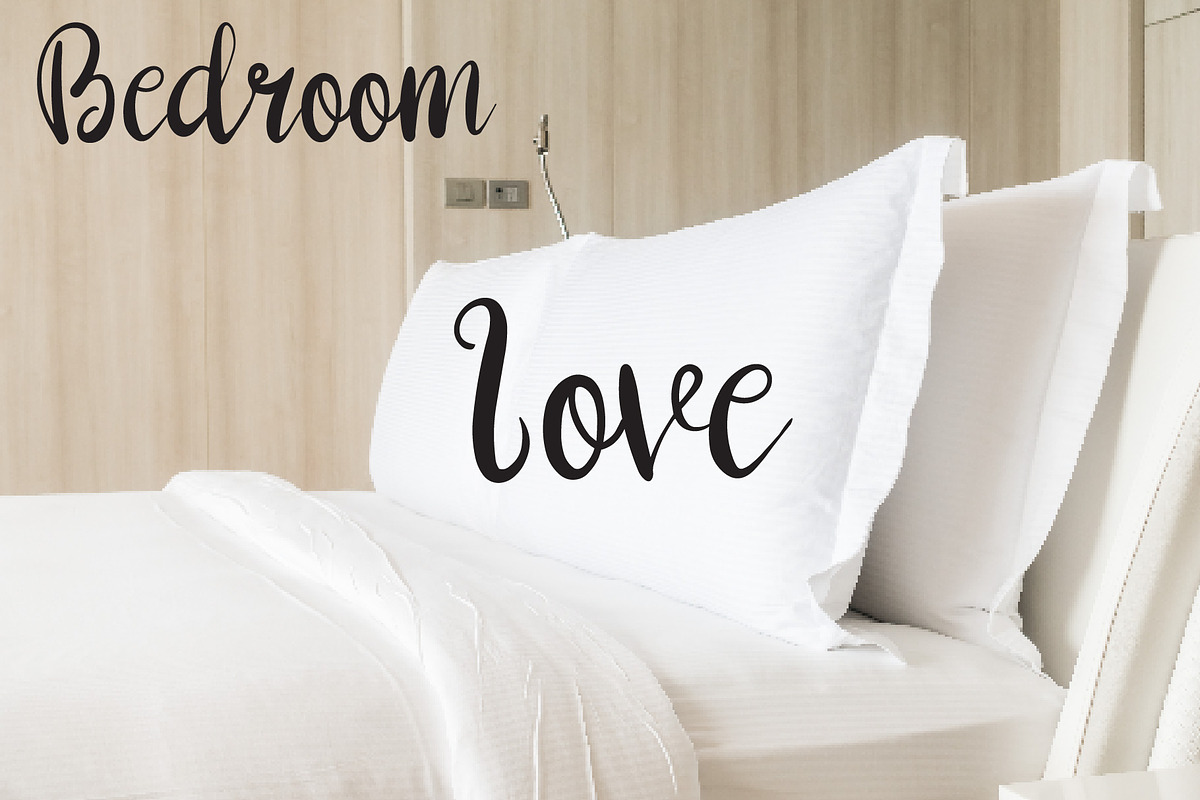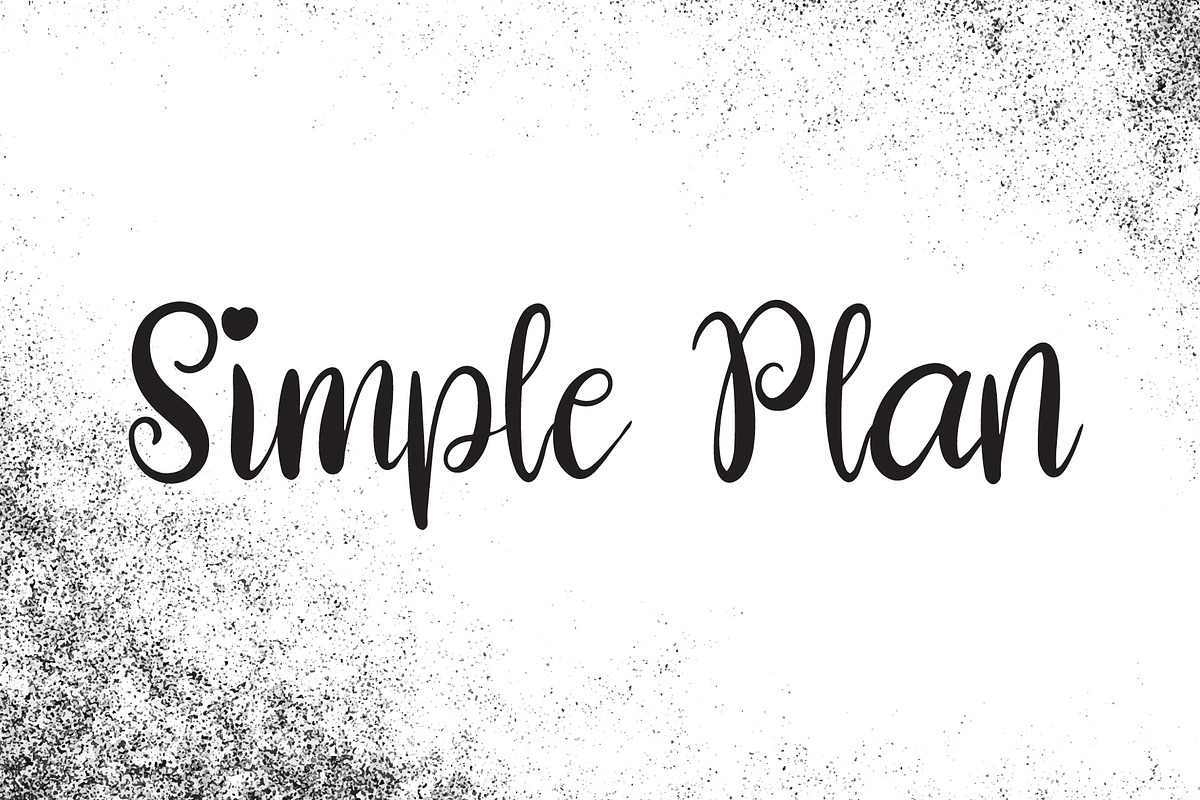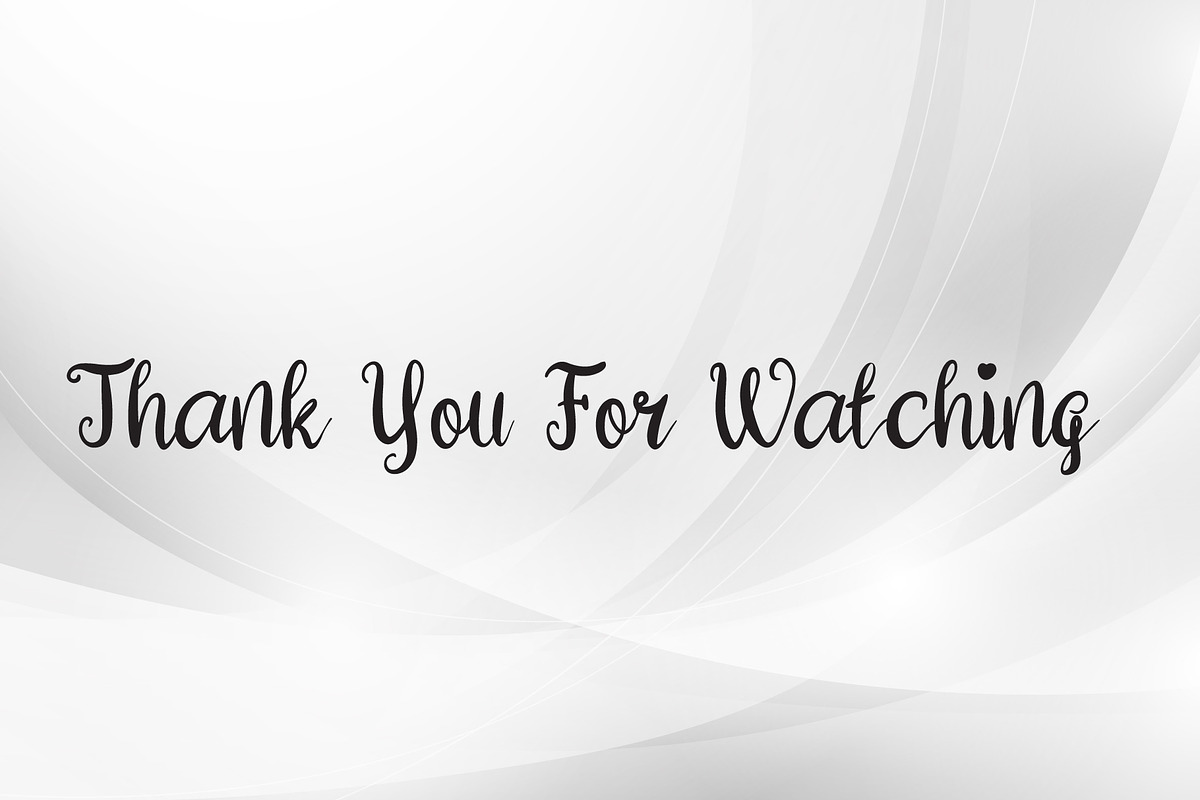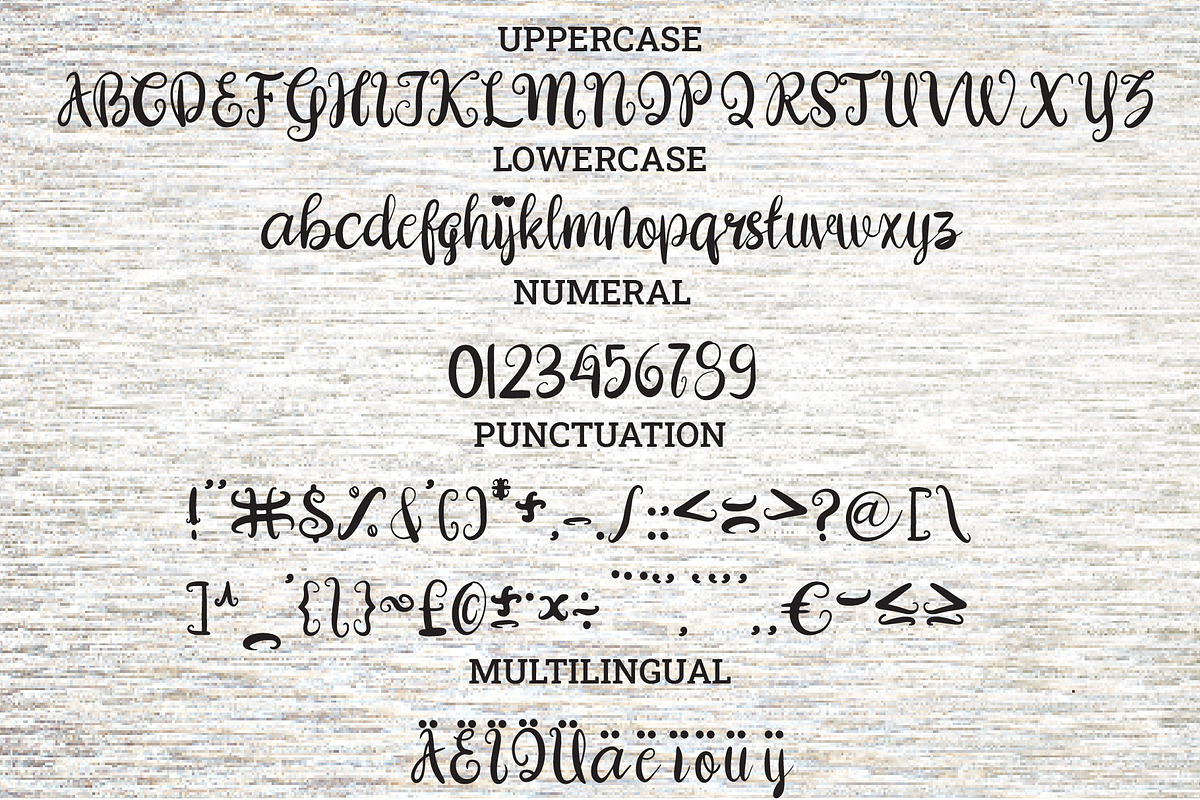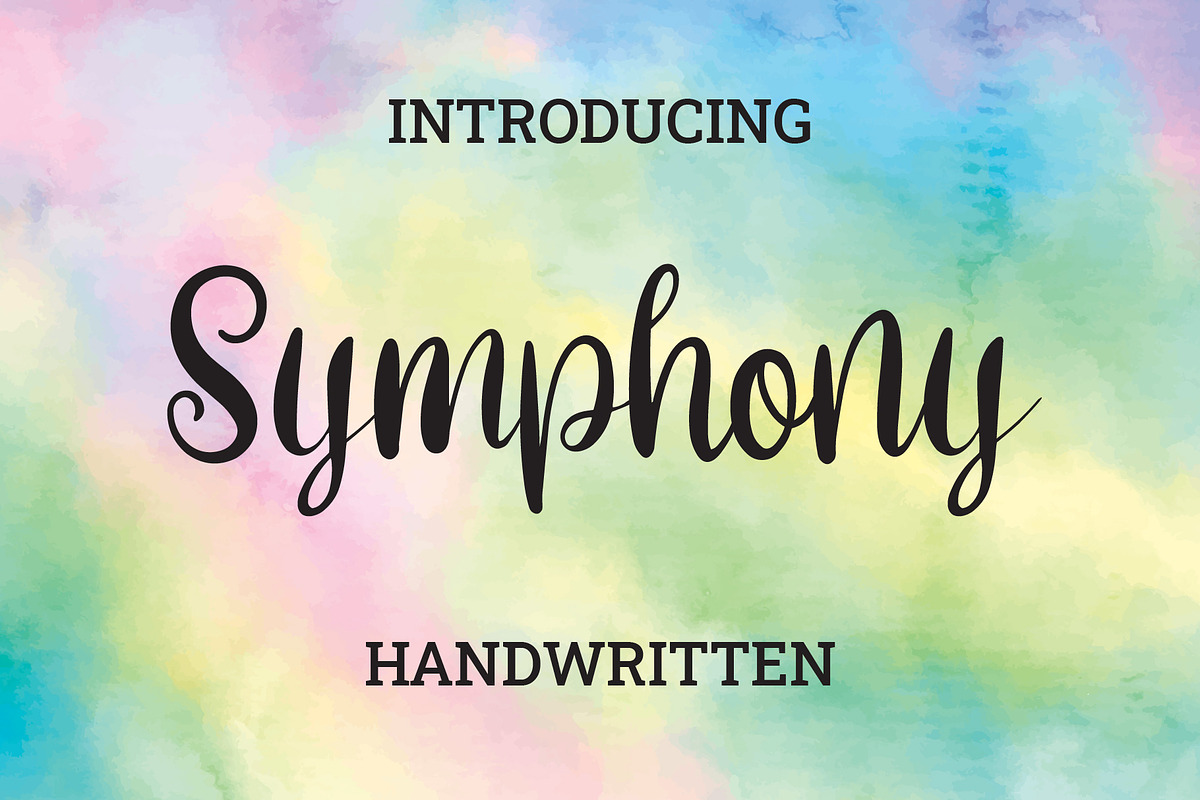
Symphony
Symphony is a beautiful handwritten font perfect for any design you wish to create, This font will make a great addition to your fonts library, as it will make all your creative projects come alive!